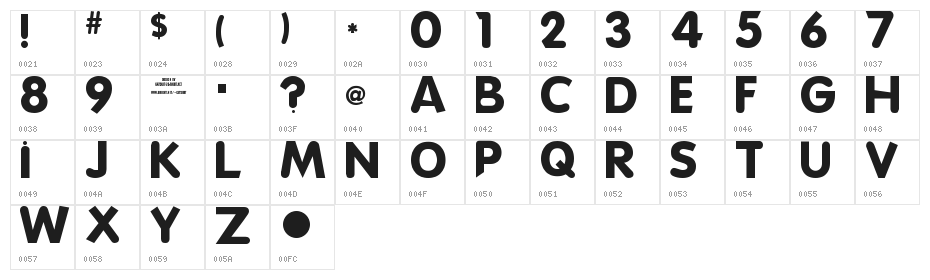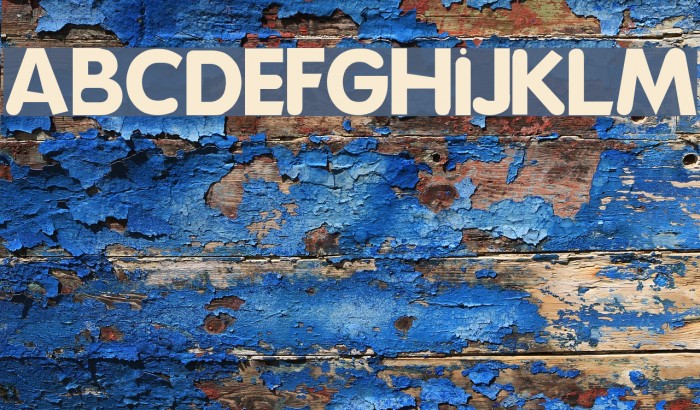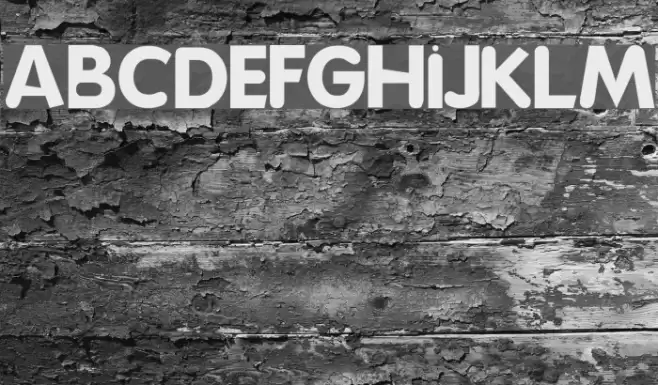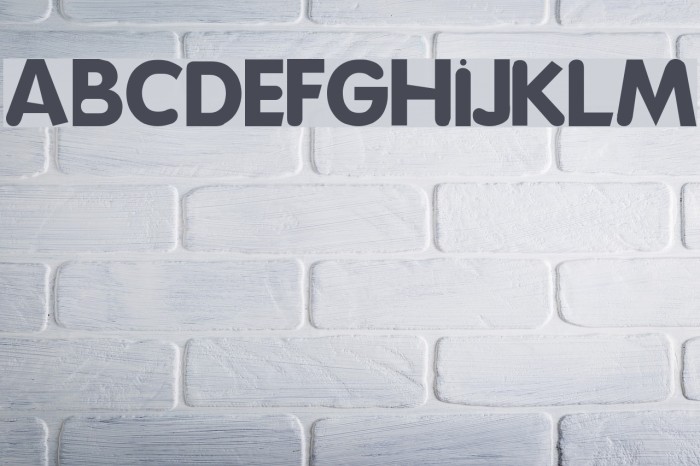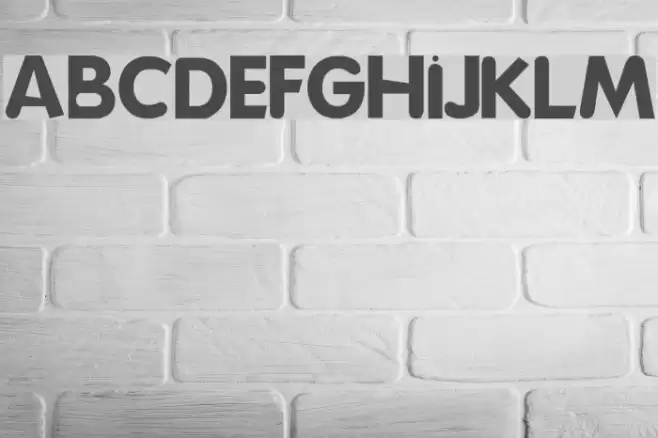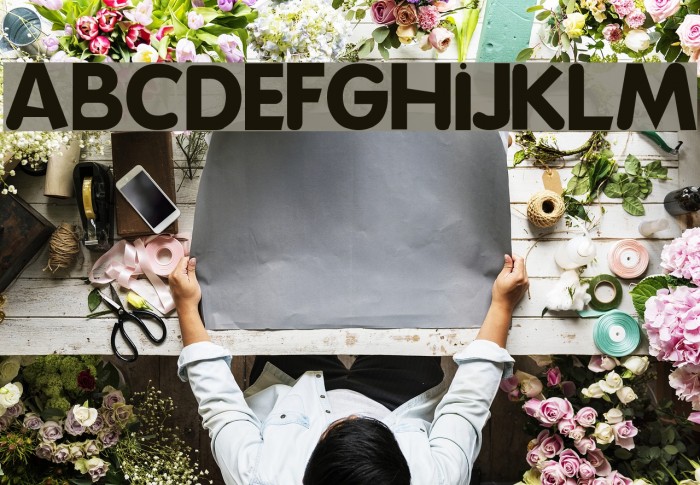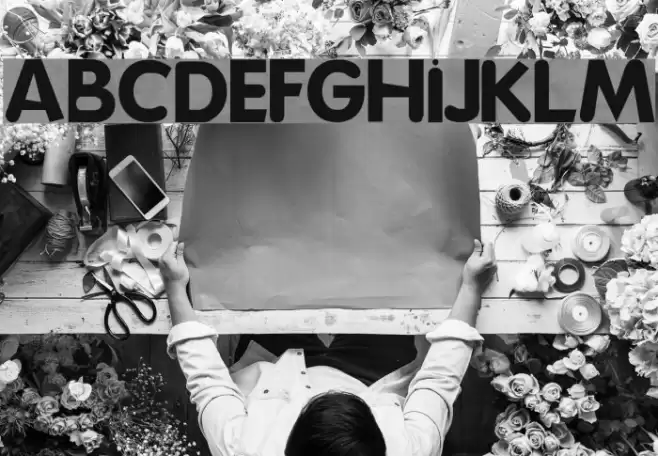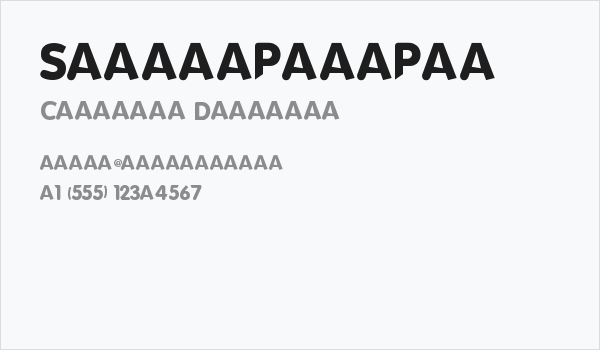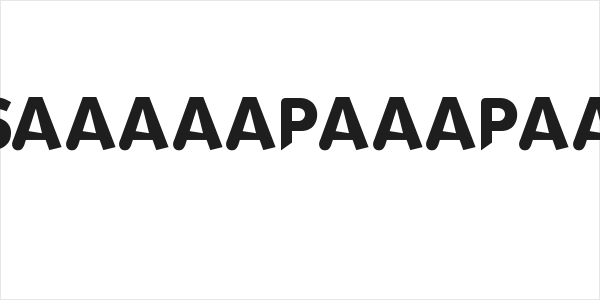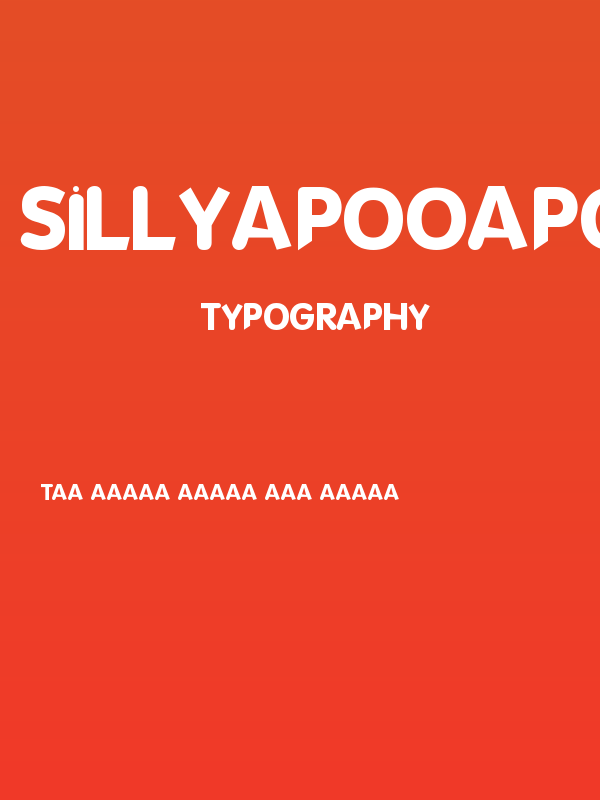
Silly-Poo-Poo Font
Silly-Poo-Poo Description
This font features bold, rounded characters with a modern and playful aesthetic. The uppercase letters are uniform in height and width, creating a cohesive look. The lowercase letters maintain the same boldness, ensuring readability and consistency. Numbers are equally bold and rounded, matching the style of the alphabet. Special characters are designed with the same playful curves, making them stand out while remaining harmonious with the rest of the font. The overall appearance is friendly and approachable, suitable for a variety of creative projects.
| Proposed Projects | Ideal for children's books, playful branding, posters, and social media graphics. |